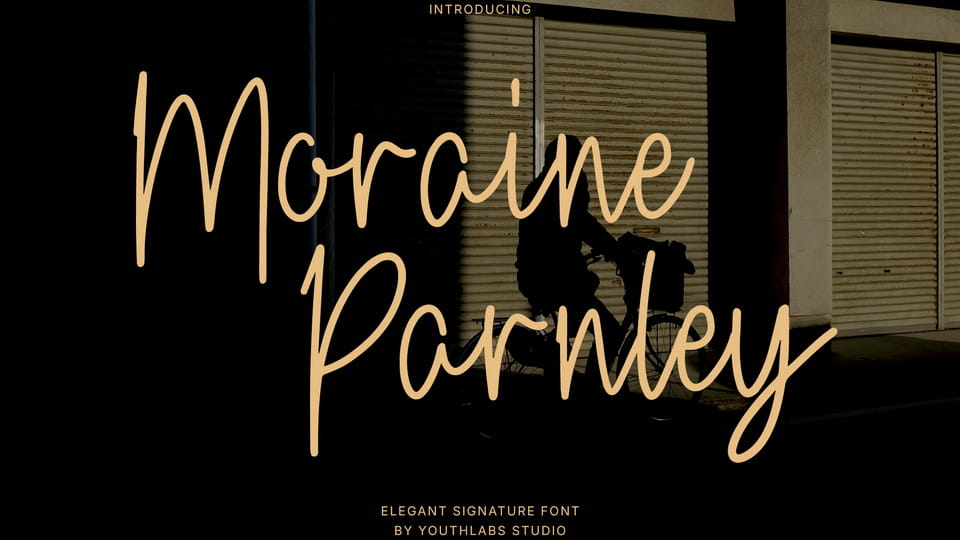
Download Moraine Parnley font, an elegant signature typeface that strikes the perfect balance between artistic flair and professional poise.
Designer: Youthlabs Studio